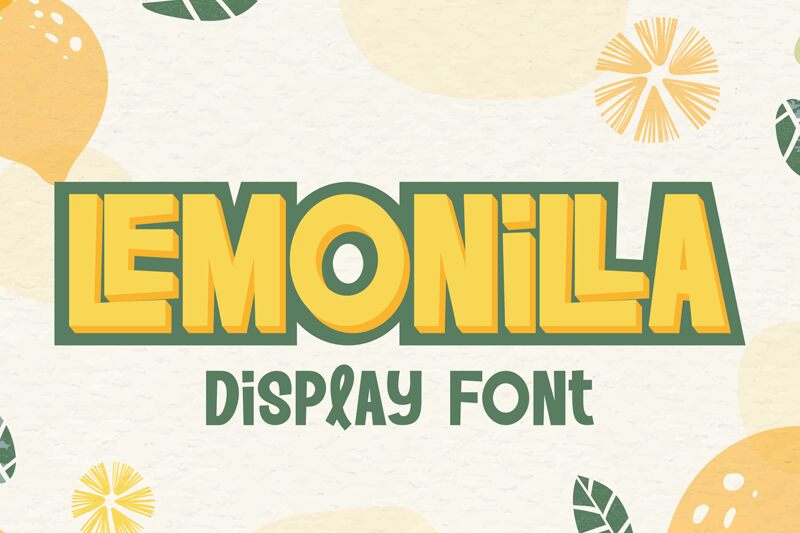
Lively and playful, LEMONILLA is a bold and condensed display font by Tikara Sari. Its cartoon-like style is perfect for children's books, comics, packaging design or any project that needs a touch of whimsy. The thick strokes and condensed width make LEMONILLA stand out in headlines and titles, while its legibility ensures easy reading. With its fun personality and versatile design, this semi-bold font adds character to any project it graces!